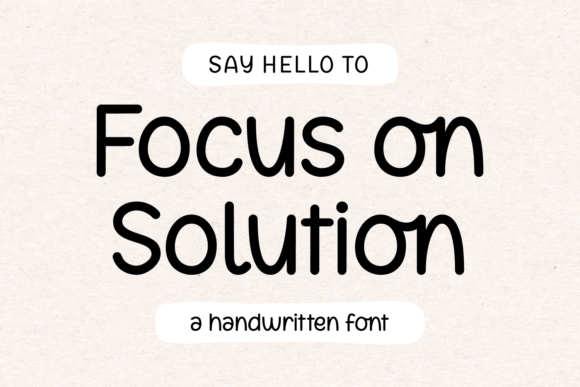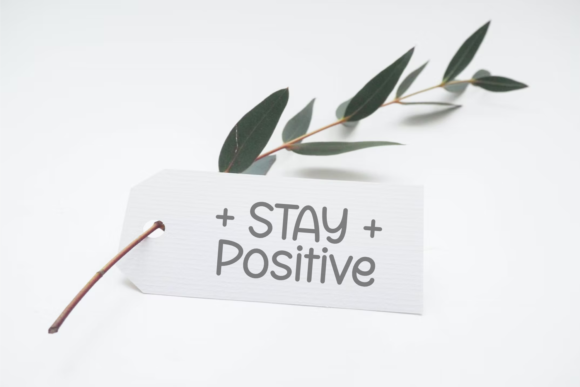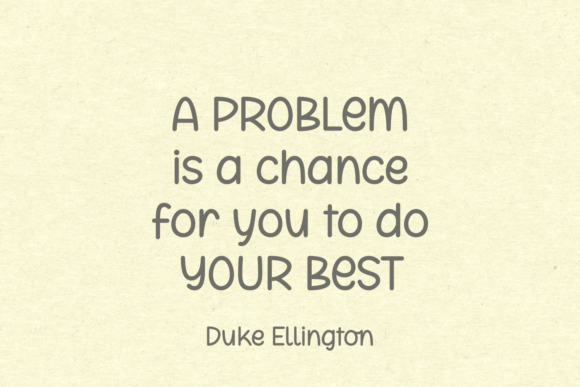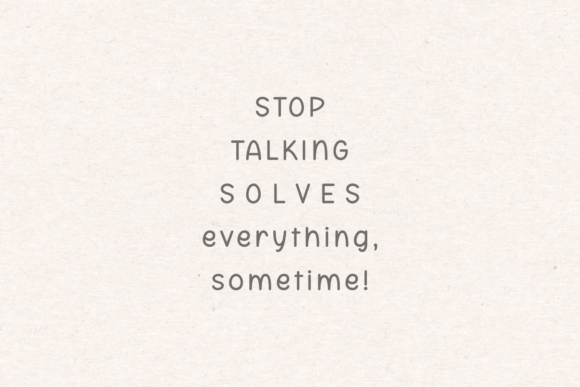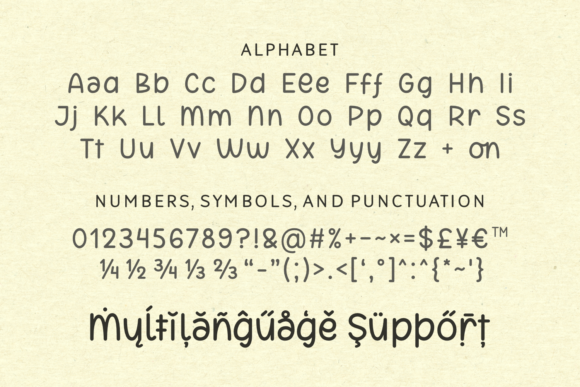
Focus on Solution Font
About Focus on Solution Font
“Focus on Solution” is a lovely and modern handwritten font that encourages a positive and solution-oriented approach. This versatile typeface is particularly well-suited for designing magazine previews and covers, creating impactful logo designs, crafting stylish shirt designs, and meeting various other graphic needs.
The contemporary style of “Focus on Solution” adds a fresh and dynamic touch to your text, making it ideal for modern design applications. Whether you’re working on magazine layouts, logo concepts, or apparel designs, the font’s modern handwritten aesthetic ensures a trendy and engaging look.
This font’s adaptability allows it to shine across different graphic needs. Whether you’re designing for digital or print media, “Focus on Solution” integrates seamlessly, providing a consistent and stylish visual identity.
As you focus on solutions with this font, you’ll discover its ability to convey a sense of positivity and forward-thinking in your designs. “Focus on Solution” becomes more than just a typeface; it becomes a visual tool that encourages a proactive and optimistic mindset.
In summary, “Focus on Solution” is a lovely and modern handwritten font that adds a positive and contemporary vibe to your creative projects. Whether used for magazine designs, logos, shirts, or other graphics, let “Focus on Solution” be the font that enhances your visual communication, making each piece a reflection of modern style and a focus on solutions.